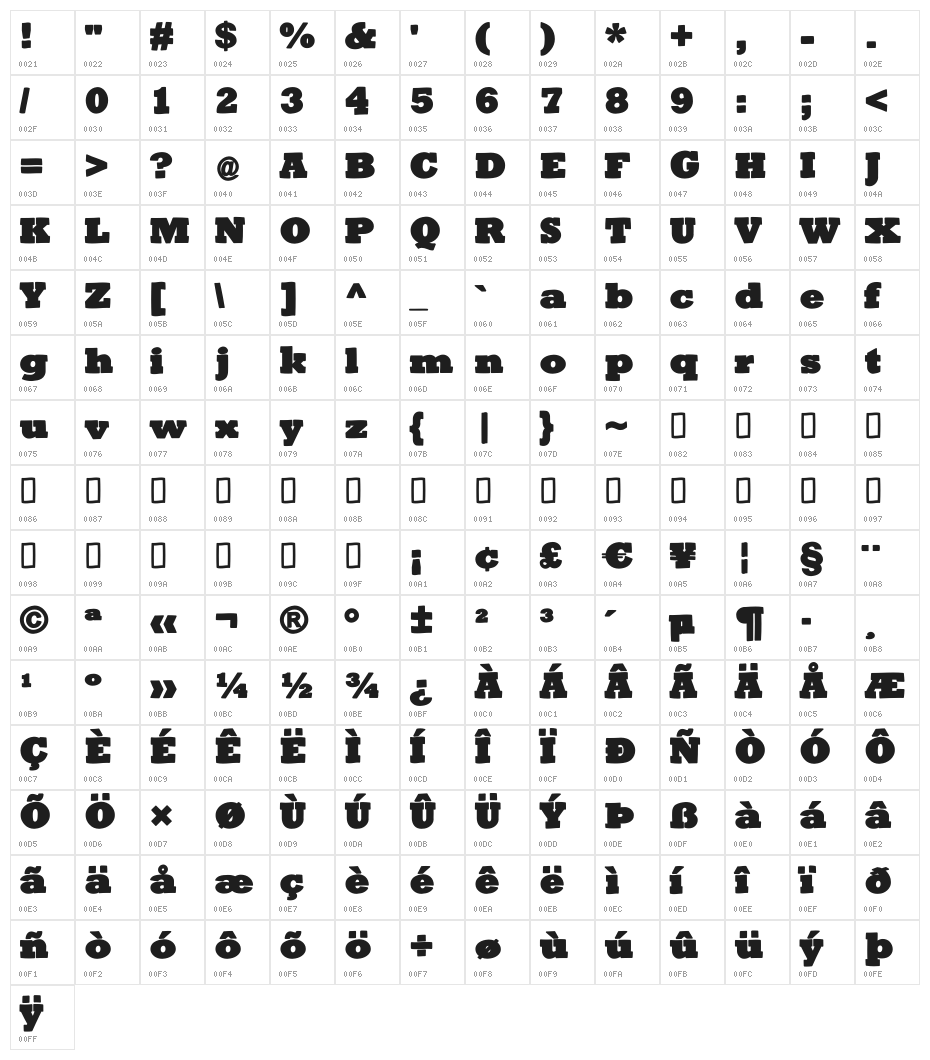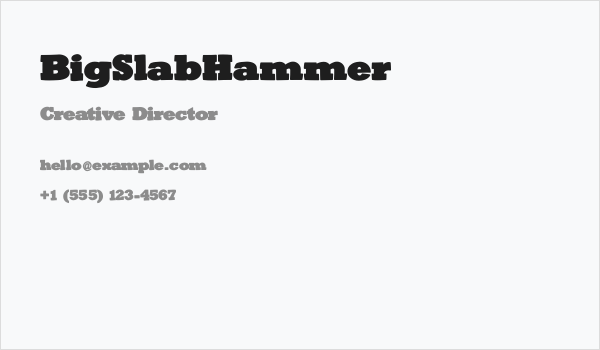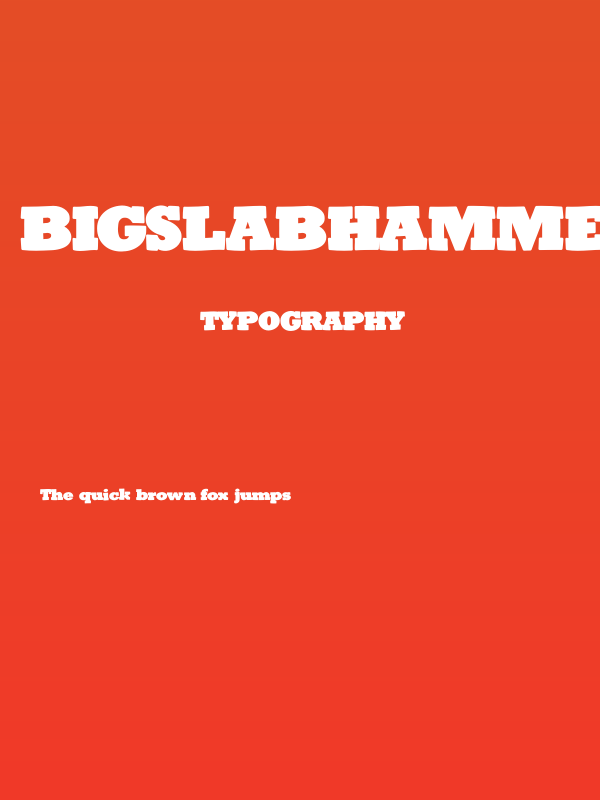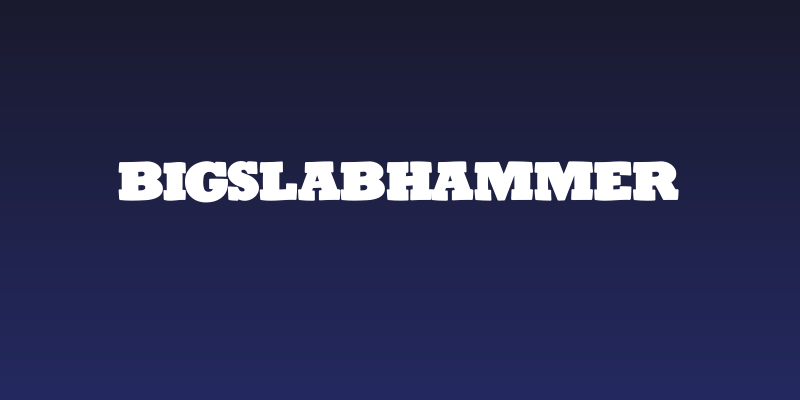
BigSlabHammer Font
BigSlabHammer Description
This font features a bold and robust slab serif design, characterized by thick, block-like serifs that give it a strong and commanding presence. The letters are uniformly wide, with a consistent stroke weight that adds to its bold appearance. The uppercase and lowercase letters maintain a cohesive style, with rounded edges that soften the overall look. The numerals and special characters follow the same design principles, ensuring a harmonious appearance across all glyphs. This font is ideal for making a statement, with its high impact and readability.
Proposed ProjectsIdeal for headlines, posters, branding, and any project requiring a bold statement.